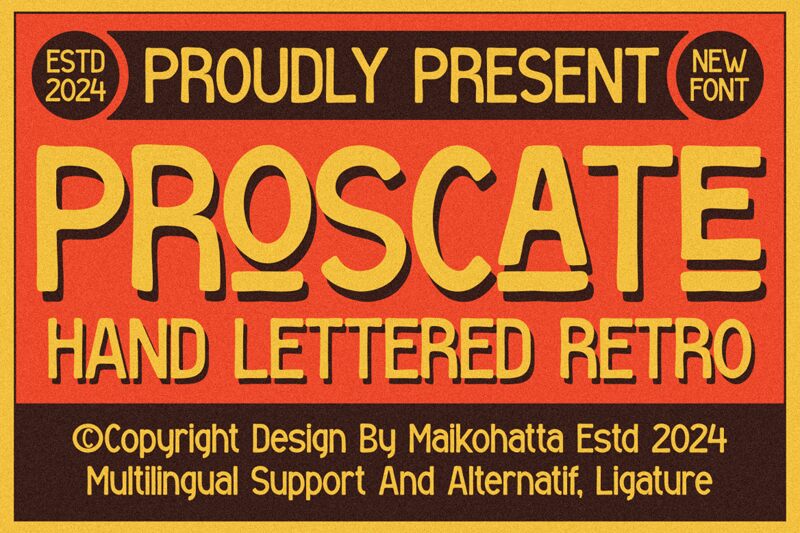
PROSCATE
Proscate font by Gilang Ternadho is a free hand-drawn display typeface with chunky, inky letters that look like they’ve been pressed onto the page. The forms are tall and slightly wobbly, with rounded corners that feel soft and almost rubbery, yet the strokes are bold enough to shout from a distance. There’s a playful tension between its irregular outlines and consistent rhythm, giving headlines a messy-but-confident personality that feels raw, loud, and human.
Using Proscate, you can inject this scruffy energy into posters, zines, album covers, streetwear graphics, stickers, and social media visuals. The font shines at larger sizes where its rough edges and organic texture can really breathe. For a balanced layout, pair this free font with a clean, narrow sans serif for body text, letting Proscate handle the noisy, attention-grabbing moments.